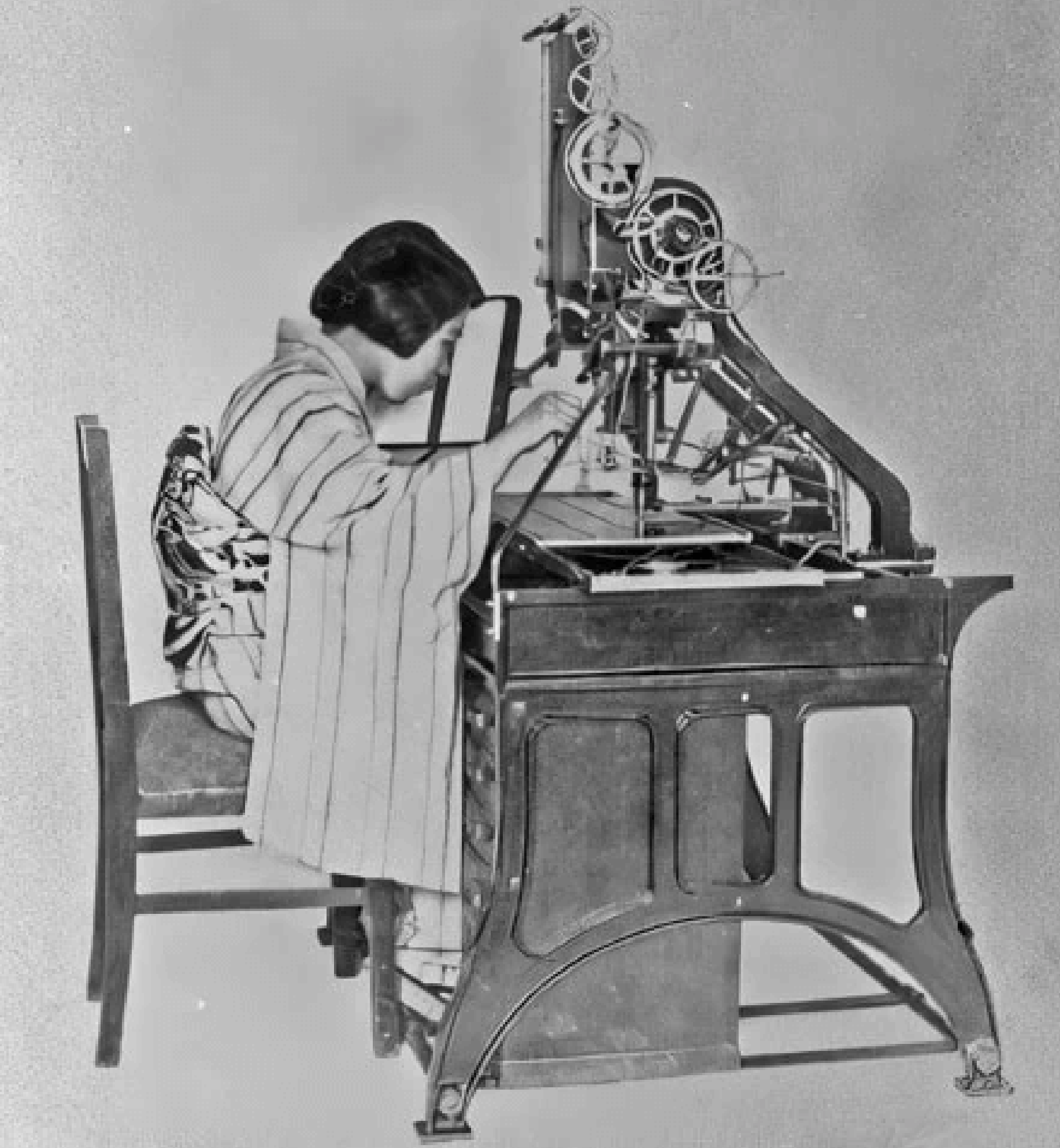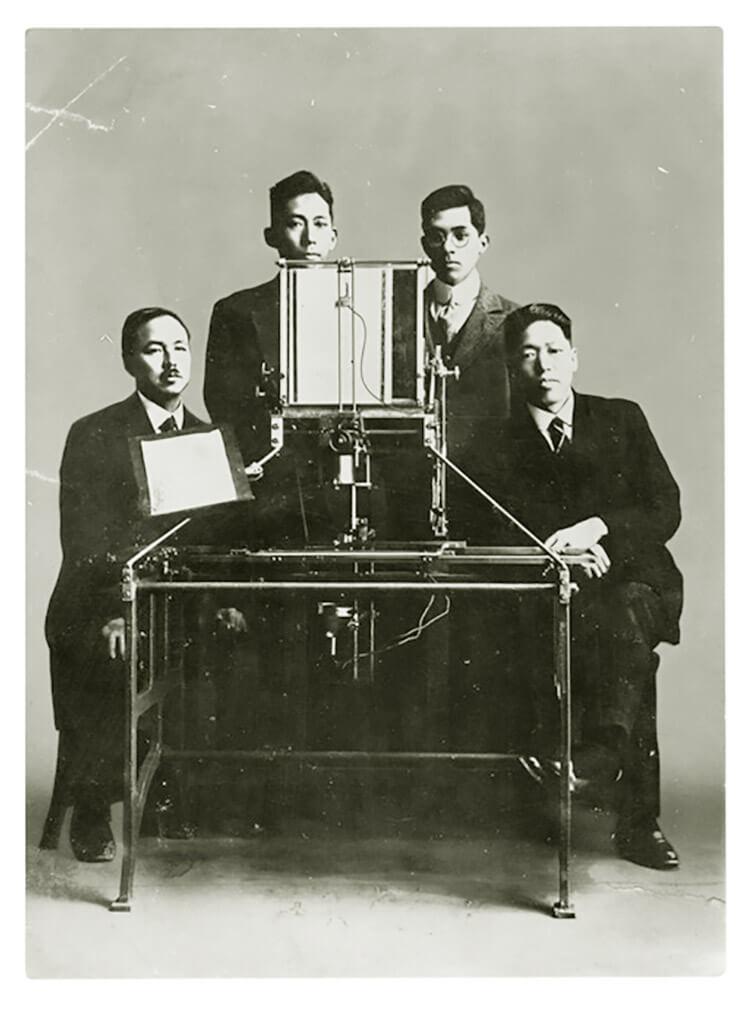
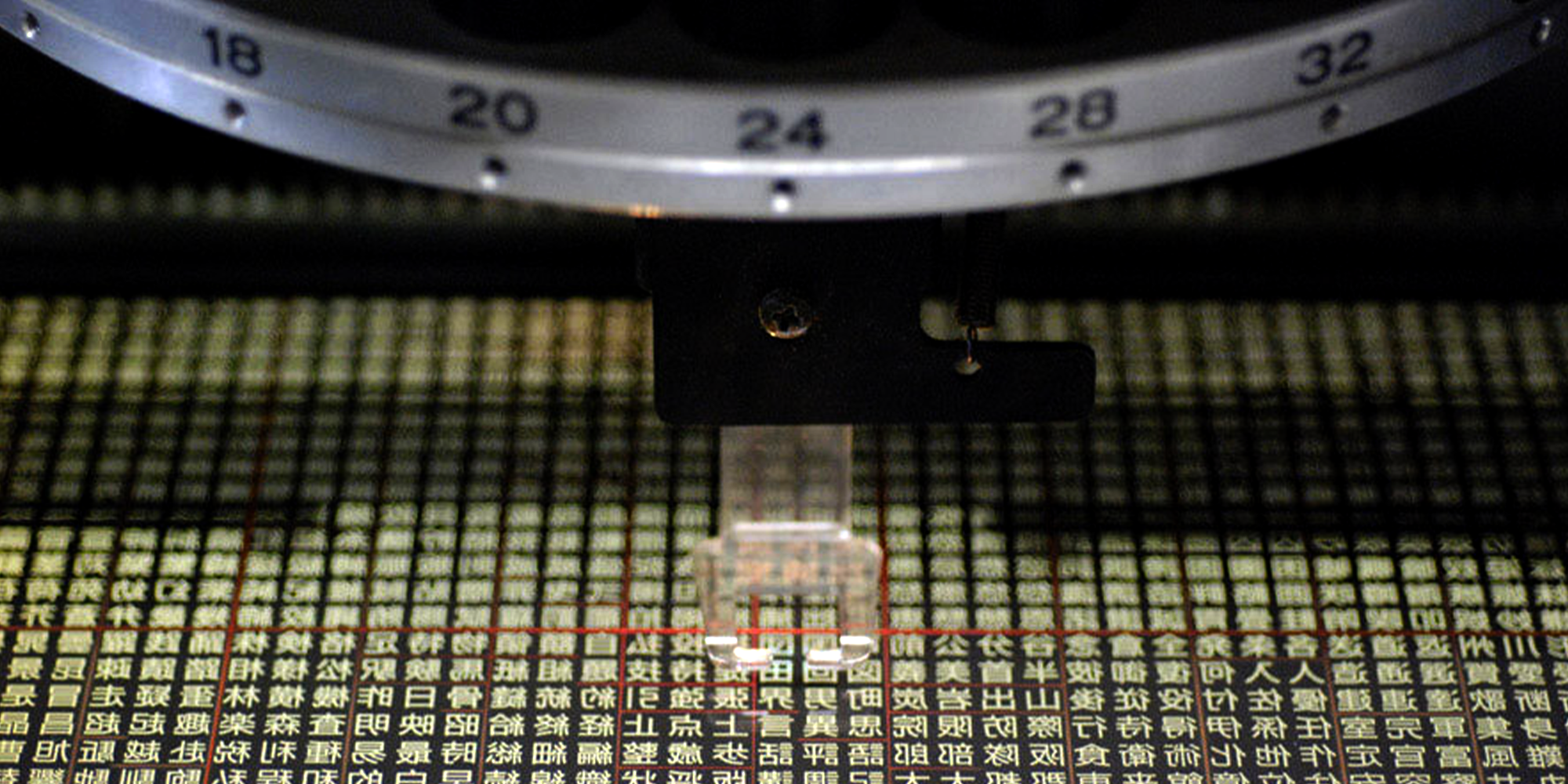
This year Morisawa, the leading type company in Japan, celebrates its 100th anniversary. Their first fonts were made in phototype, not metal. . . Really?
One of the early phototype grids---with 5,400 glyphs. [Photo: Morisawa}
In the 1950s machines began to appear in the United States and Europe that set text in phototype, challenging the hot-metal machines that had been setting the type for books, magazines, and advertising since the late 19th century. Their production target was offset printing, which used a film image of the type to make a flat plate. Lithography. The three-dimensional metal type required for letterpress printing was no longer needed.
The phototype concept had been around for a while, but the first machine is usually identified as the Lumitype (see Wikipedia), invented in Lyon, France in the late 1940s.
But this history ignores events two decades earlier. In 1924 Nobuo Morisawa (1901–2000) and Mokichi Ishii (1887–1963), filed a patent for a phototypesetting machine that could set Japanese.
That first machine was operated by hand and set display type. It was really an astounding achievement since the language has a minimum of 2,000 glyphs—and the current standard calls for more than 20,000. But each fits in a square, unlike Latin glyphs. The two partners set up a factory and started selling the machines in 1929. Morisawa, an engineer from a working-class family, was the one who realized a Japanese phototypesetter would have the advantage of set character widths, but there were the minimum number was 20x the Latin character set at the time. He adapted the mechanics of the Nippon typewriter which had appeared in 1917, replacing the tray of metal characters with a film grid containing 2,400 glyphs. (Additional glyphs were available on a second grid.)
Ishii focused on the type design, and his fonts are still used and admired today. With wealthy parents, he provided the capital and the connections to get the firm started. And the designs were essential. The first company was called Ishii Phototypesetting Institute.
There was a market: Lithographers who printed art and advertising posters; agencies who used drawings and lettering for ads that were then made into photoengraved “zincs” for letterpress printing. But it would be 30 years before offset lithography challenged letterpress for big publishers.
In Japan there was even greater inertia in the technology of metal type and letterpress, due to investments in equipment, infrastructure, and labor. Somehow the new company survived through the stress of the 1930s (economic depression and war in China and Russia), but the partners split up.
WWII obliterated type inertia in Japan, and after the war Morisawa rejoined Ishii and began to work on faster typesetters, with keyboards. But the two fell apart again; in 1948 Morisawa started his own company. Ishii changed the name of the original firm to Sha-ken.
Petr van Blokland (designer at the TYPETR foundry) inspects an early Morisawa phototypesetter.
Both were positioned to take advantage of the postwar boom, as the by Japanese printers and publishers embraced offset to rebuild. Phototype added momentum, since there was no reason to re-invest in the tons of 3D metal type and giant composing rooms when phototype was a well-developed alternative. But Sha-ken took the lead, since it had Morisawa’s machines, and held onto the fonts that Ishii had drawn or commissioned.
Morisawa built a new machine at the end of the 50s that could set the proportional fonts for kana, the Japanese writing system based on sounds—and of course Latin fonts.
Japan held onto phototype for the next 30 years. Sha-Ken was the leader, and built a big studio, continuing to dominate Japanese type design after Ishii’s death in 1963.
The next big change was the advent of desktop publishing in the mid-80s. Adobe came to Sha-Ken to license their fonts for Postscript, but Ishii’s descendants turned them down.
Nobuo Morisawa understood the inevitable changes in technology, realizing the next step was fonts for screens. The company quickly agreed to work closely with Adobe, a relationship that continues.
The next three decades saw Morisawa emerge as the leader in Japan. The company replaced its hardware business model with type design and font licensing. And it moved beyond Japanese to both Asian and Latin scripts. The prestigious biannual Morisawa Design Competition recognizes the best typefaces in all languages. The company made strategic alliances with type foundries in other countries in the last decade, and acquiring the leading foundry in Taiwan, Arphic, and a prominent foundry in the U.S., Occupant (a founding partner of Type Network).
To close the circle, Morisawa has agreed with Sha-Ken to release, in the OTF format, the fonts drawn by Ishii for Nobuo’s first machine.
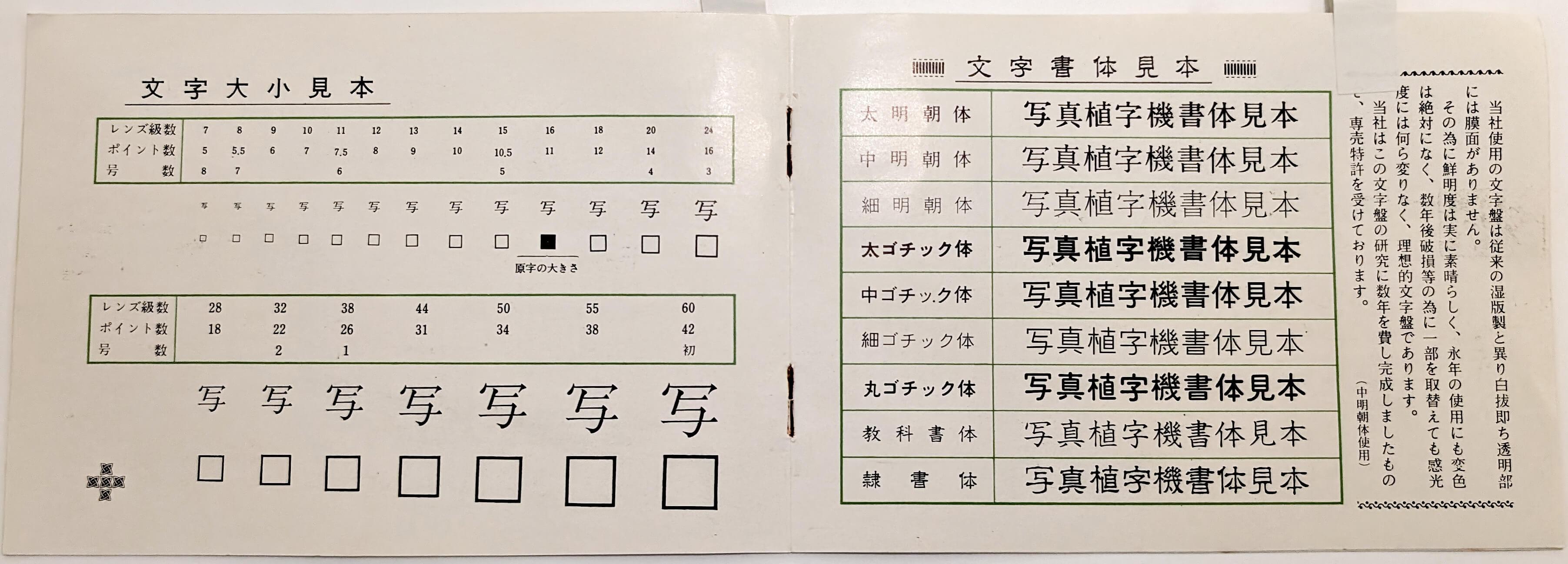
A 1960s specimen from Morisawa.
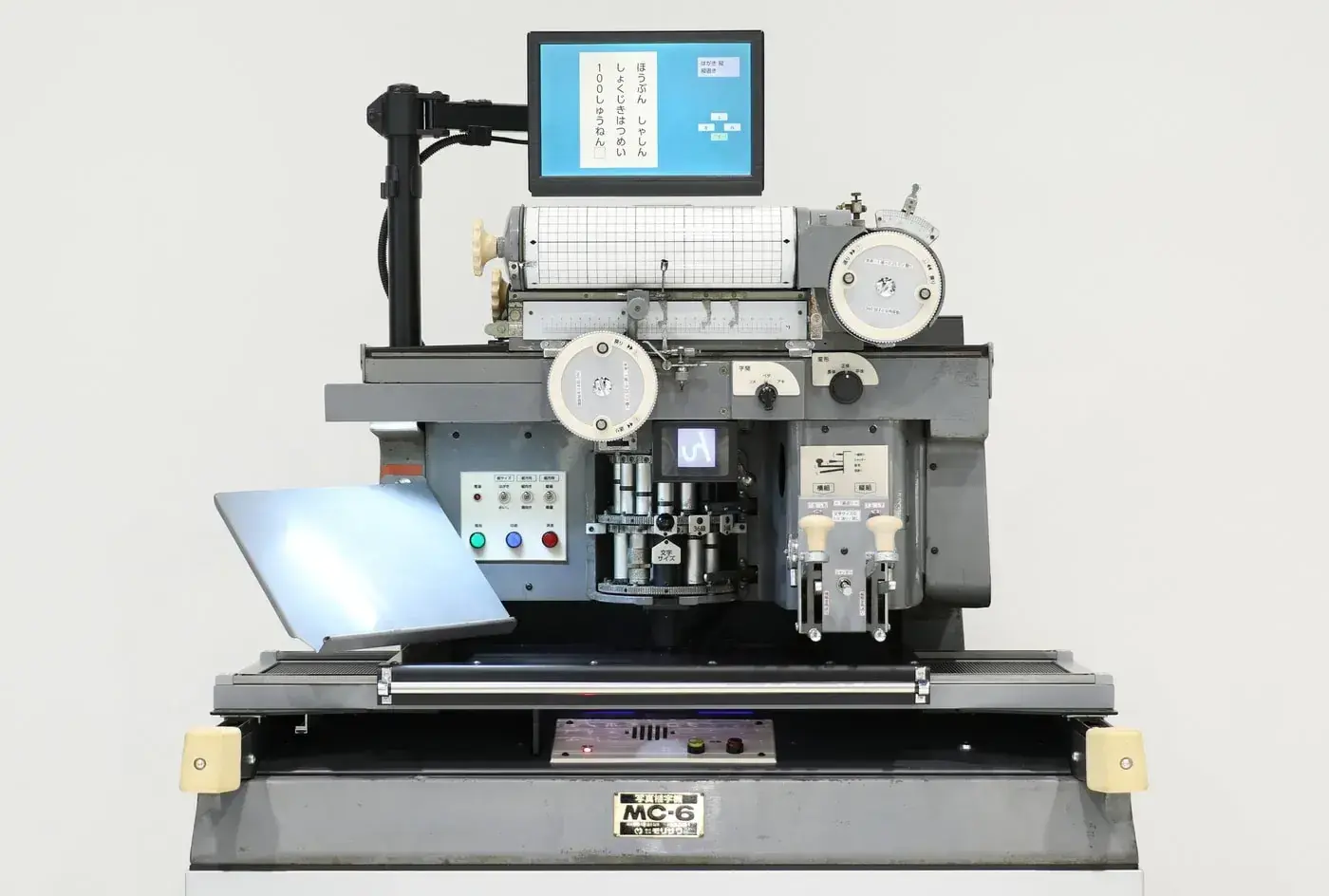
The MC-6, Morsiawa’s last proprietary machine—still in use! [Photo: Morsiawa]
Europe and the United States lagged Japan for two decades. To fact-check my assertion that Morisawa produced the first successful phototypesetting machine, I did some research. I found earlier references to the idea of phototype. Akihoko Morsiawa, now the company’s chair, has pointed to an ad in the Penrose Annual for something called Photoline. (I could find nothing about it.)
Historical note by Makoto Watanabe, a designer in Germany: Historical Note, Morisawa's History with Adobe